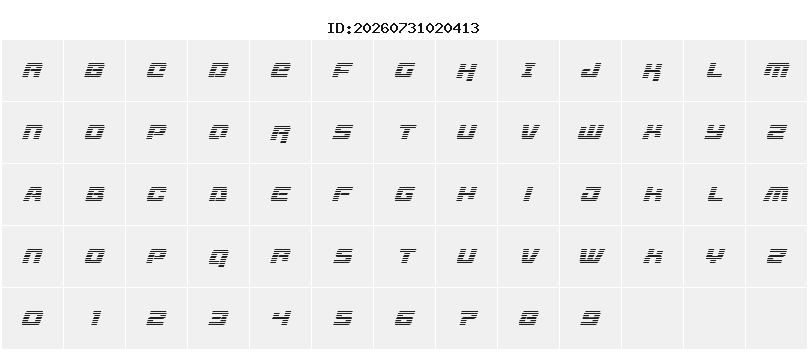
Livewired Gradient Italic Preview
• Font Name: Livewired Gradient Italic
• Full Font Name: Livewired Gradient Italic
About Livewired Gradient Italic.ttf
Livewired Gradient Italic.ttf is a modern, elegant sans-serif font designed for ultimate readability and visual harmony. Perfect for branding, headlines, web design, and print materials.